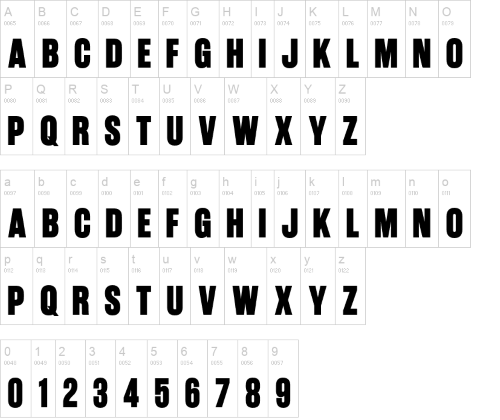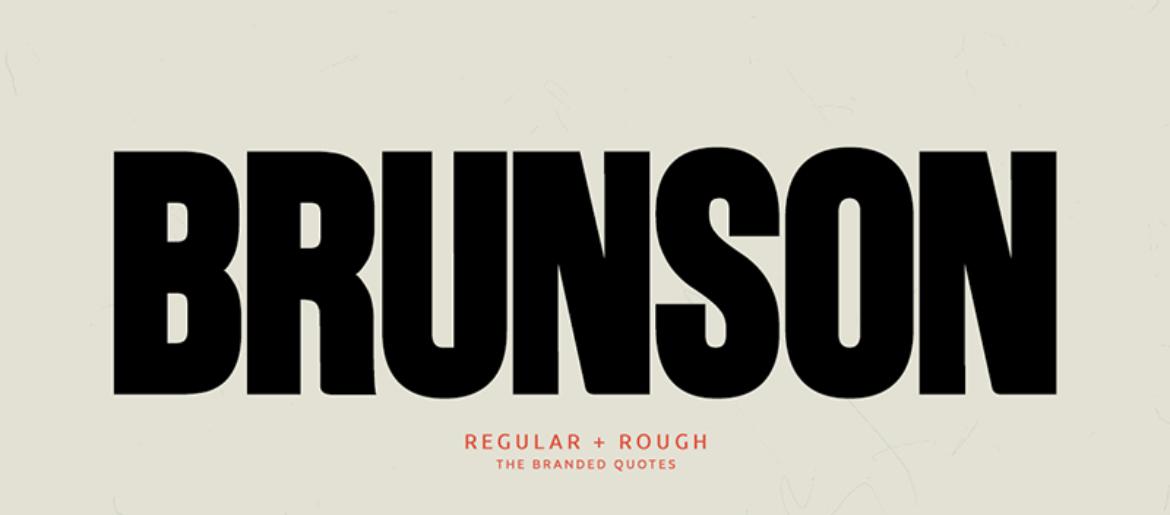
Brunson Font
Brunson is a striking, high-impact sans-serif font designed for versatile use. It comes in two unique styles: Brunson Regular and Brunson Rough, both perfect for headlines, movie titles, posters, digital banners, and album covers. Brunson Regular features bold, sharp-edged lines with surprising curves on select glyphs, adding character and flair. Brunson Rough offers textured, squiggly edges while maintaining the font’s sharp weight and clean sans-serif structure, giving your designs a dynamic, edgy look.The tight kerning and heavy-lined characters of Brunson make any branding or visual project stand out with maximum impact.
➤ Font Name: Brunson
➤ Designer: The Branded Quotes
➤ Style: Sans serif